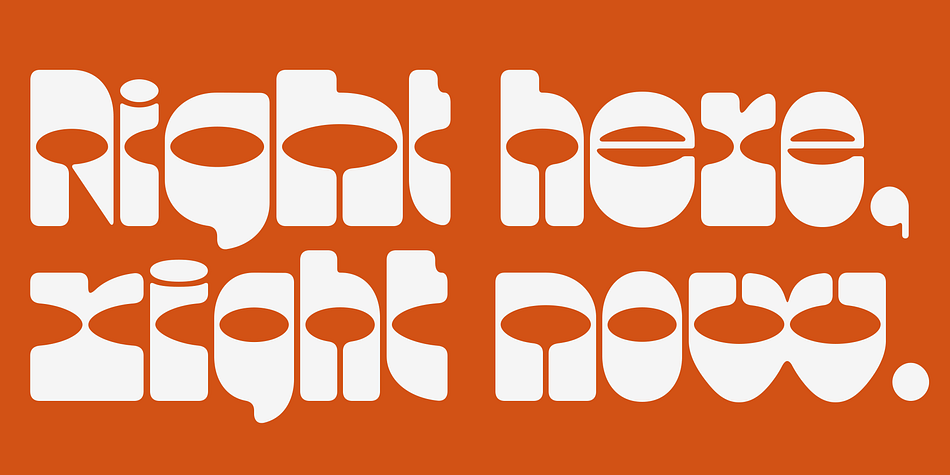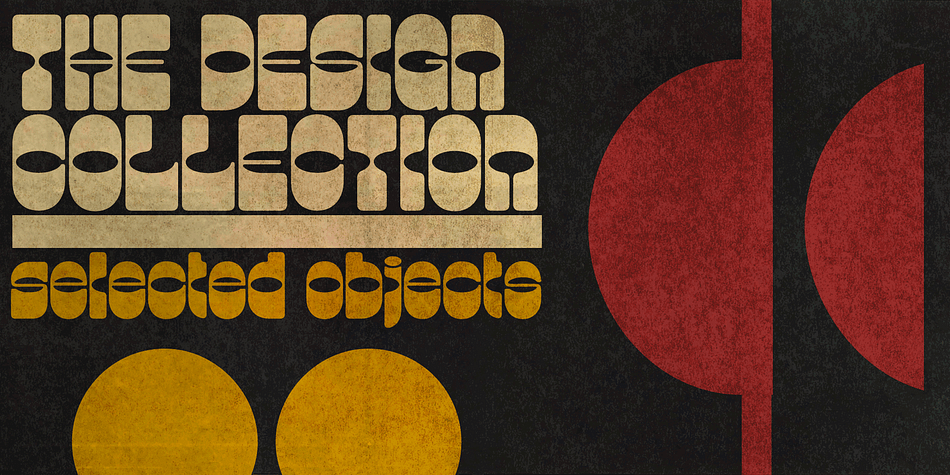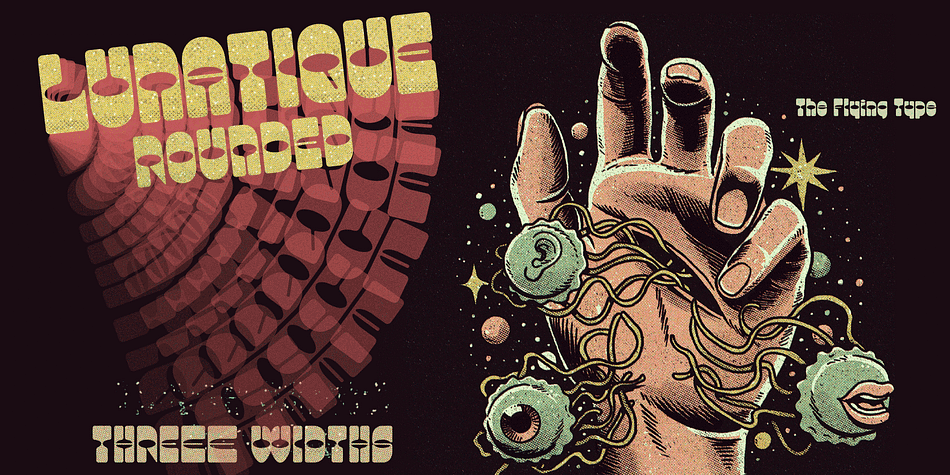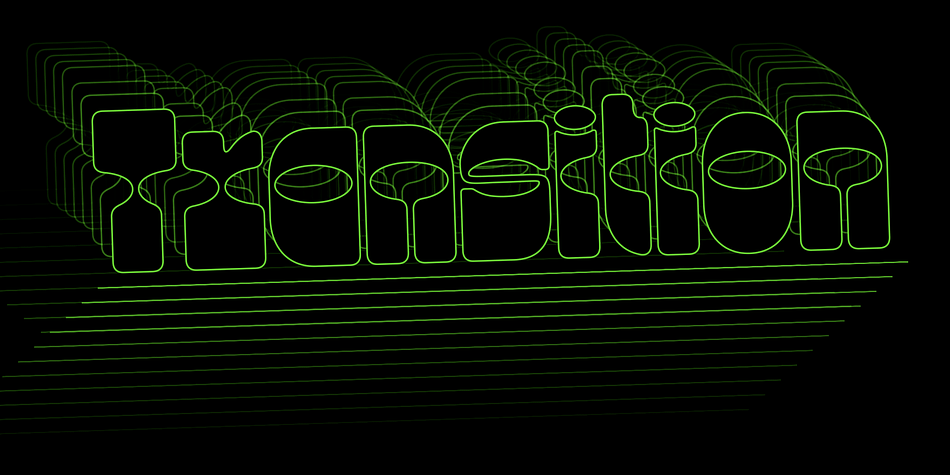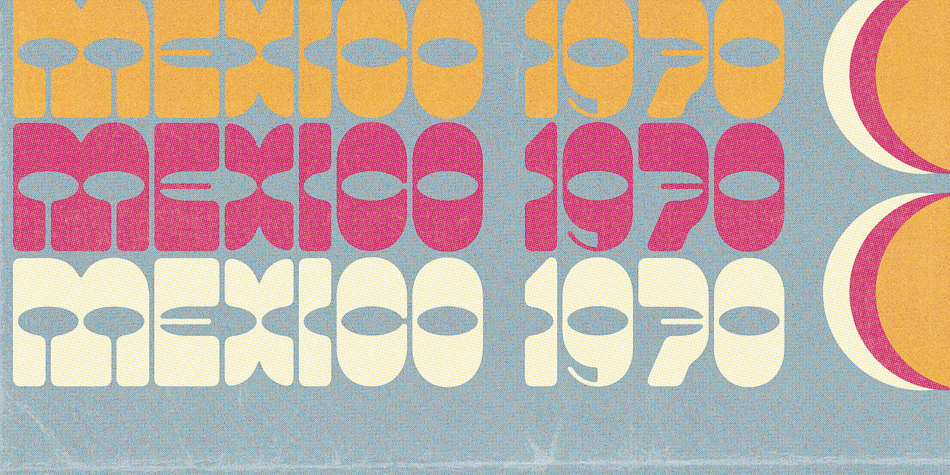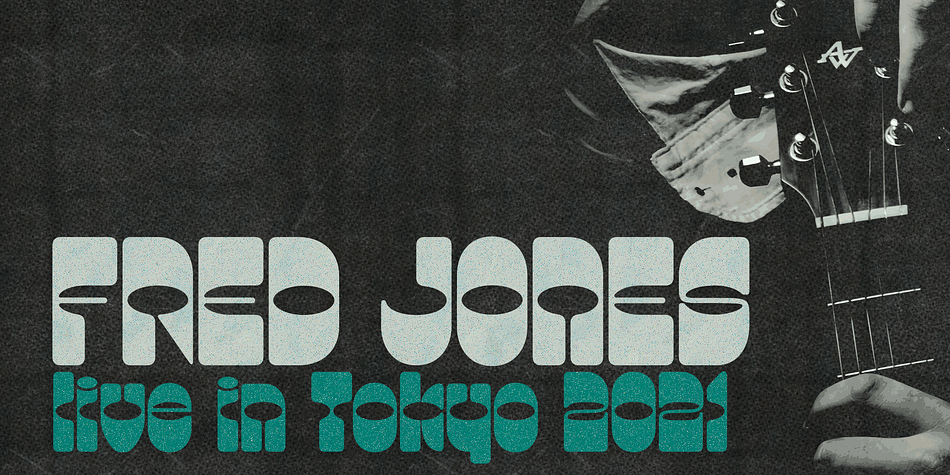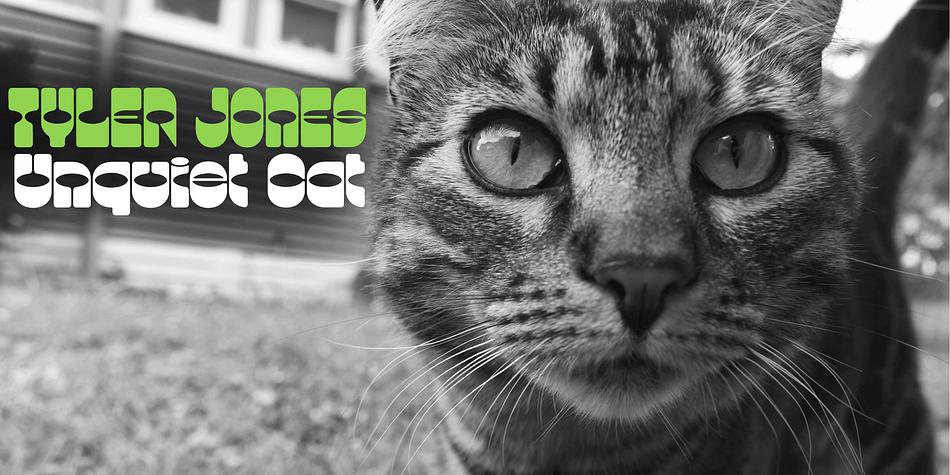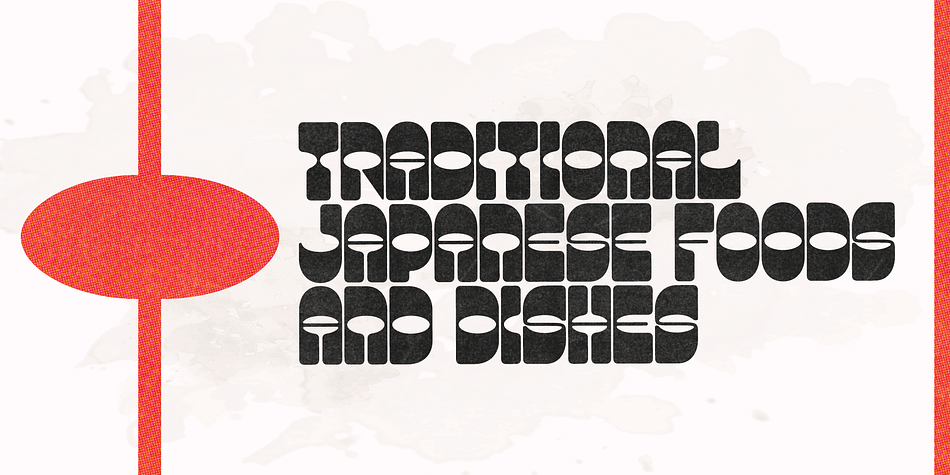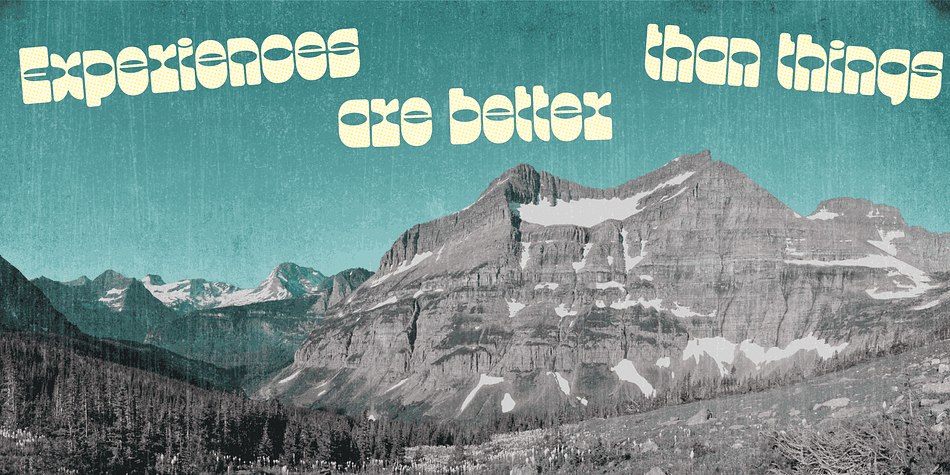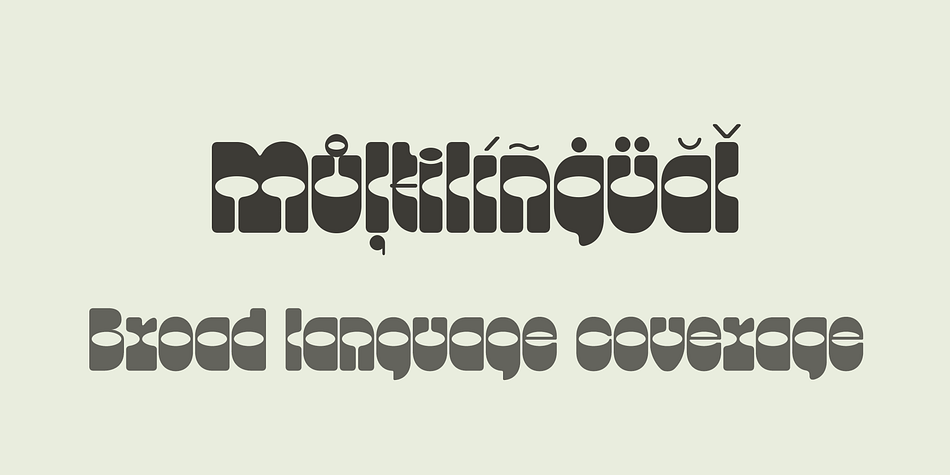
Lunatique Rounded
Designed by Ricardo Marcin and Erica Jung, Lunatique Rounded is a display font family. This typeface has three styles and was published by The Flying Type.
Lunatique Rounded is the soft version of Lunatique, a highly decorative font, available in three widths, with extended language coverage as well as alternates for some glyphs. And quite a seventies flair, isn’t it?
This font is inspired by Lucky typeface, designed in 1972 by André Pless for the Mecanorma permanent type contest. The style was later released as Letter-Press transfer sheets.
Transfer sheets… Sounds quite nice, definitely. But hey, these digital ones will be waaaaaay smoother to use, you bet. Packaging, posters, books & album covers, applications are endless. Give them a go and make your text shine!